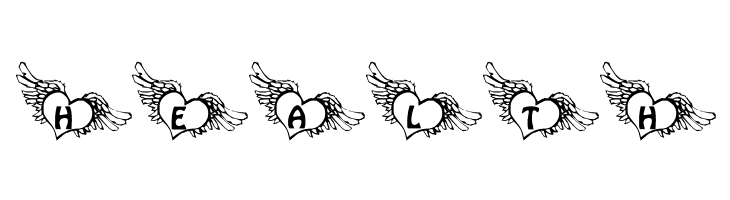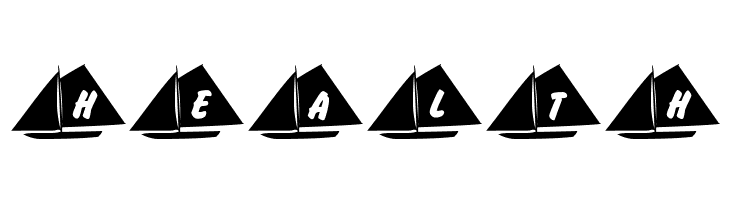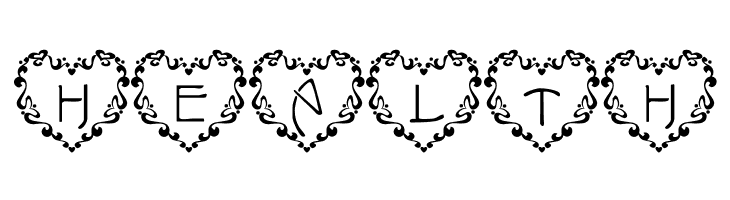
A playful font with letters inside heart shapes, perfect for romantic themes.
A decorative font with characters inside heart shapes with wings.
A nautical-themed font with characters integrated into sailboat silhouettes.
A decorative font with characters inside heart-shaped floral designs.